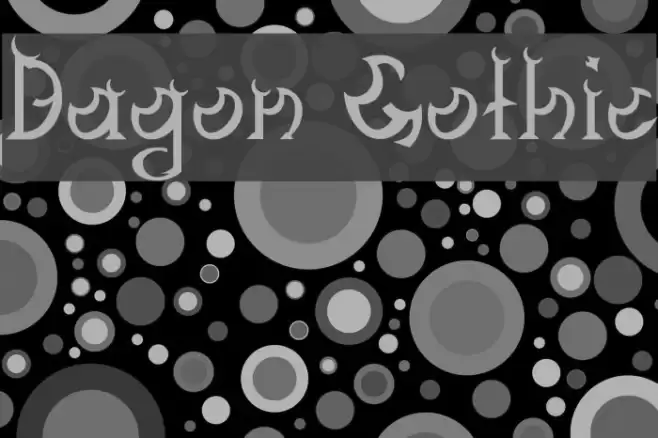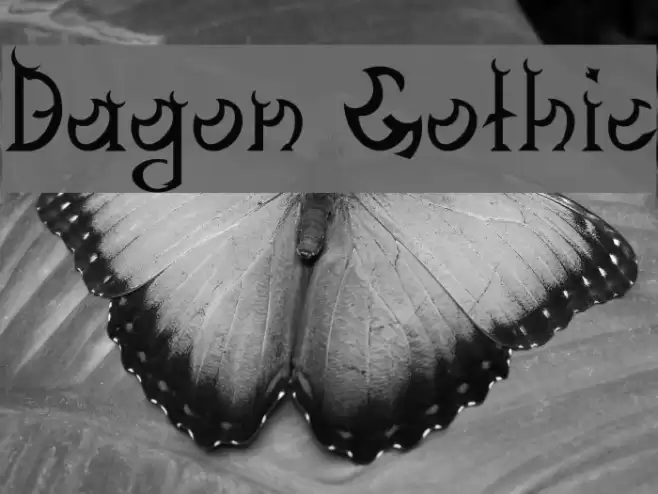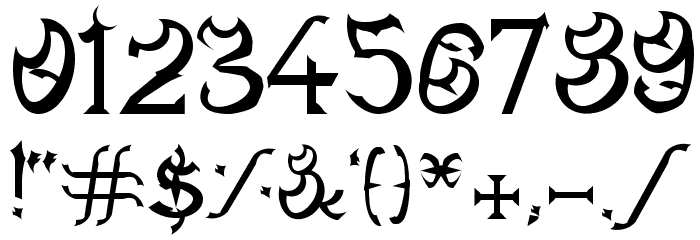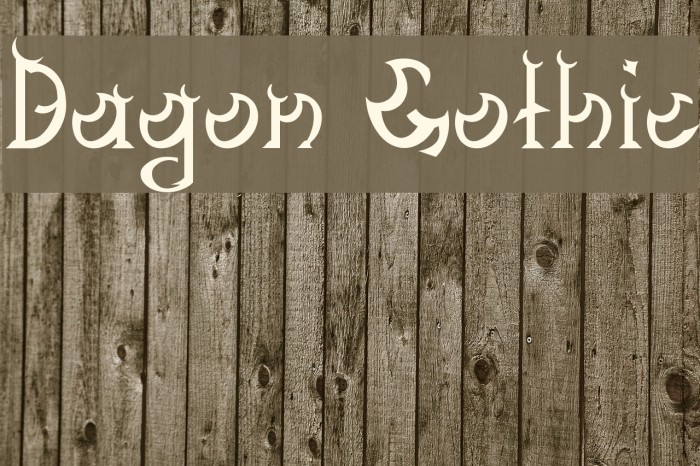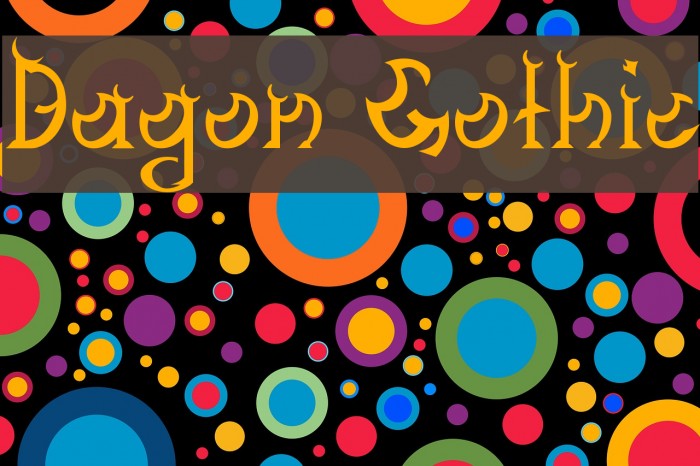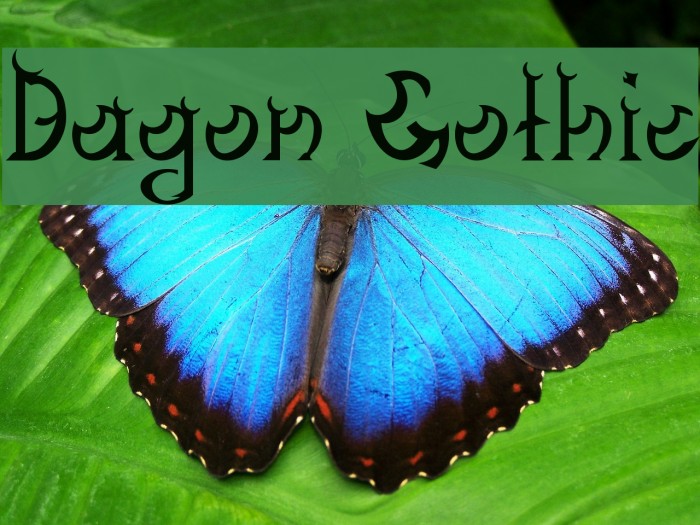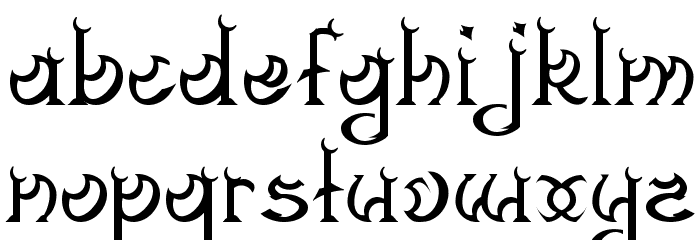
Dagon Gothic Font
Dagon Gothic Description
This font features a distinctive Gothic style with sharp, angular edges and intricate detailing. The uppercase letters are bold and commanding, with unique flourishes that give each character a sense of individuality. The lowercase letters maintain the same Gothic aesthetic, with a slightly more compact and rounded form. Numbers are equally stylized, with a consistent design that complements the alphabet. Special characters are ornate, adding to the overall decorative nature of the font. This typeface is perfect for projects that require a dramatic and historical feel, such as fantasy-themed designs or vintage-inspired branding.
A bold, Gothic-style font with intricate detailing and dramatic flair from Uncategorized fonts.
- Proposed Projects: Ideal for fantasy-themed designs, vintage branding, book covers, and decorative posters.